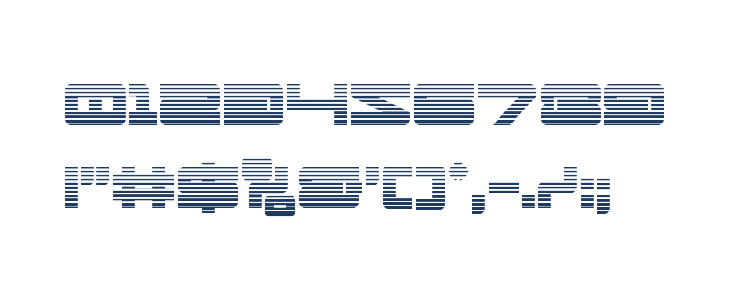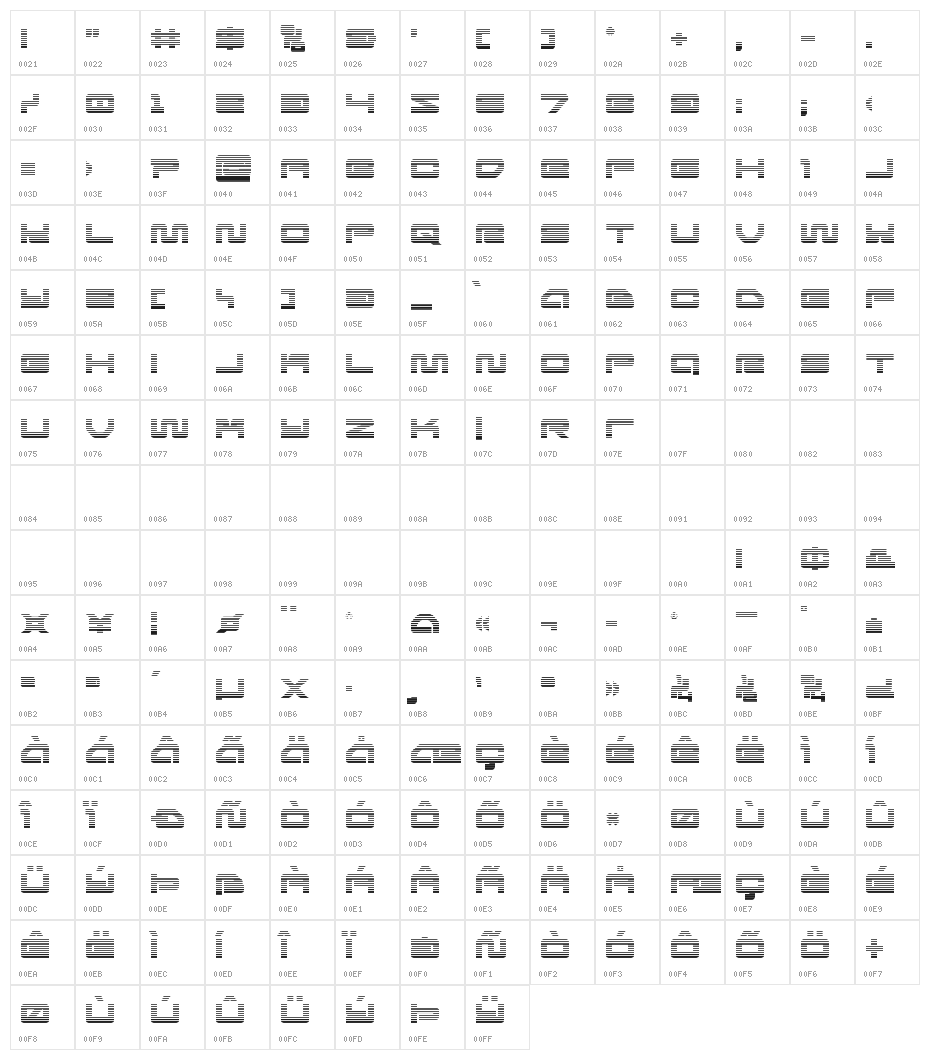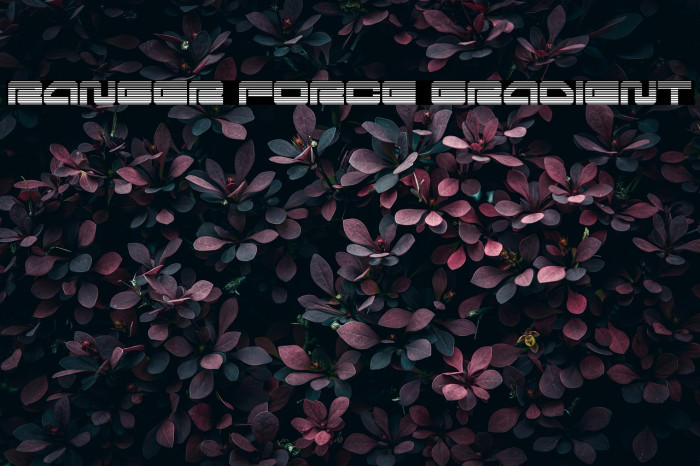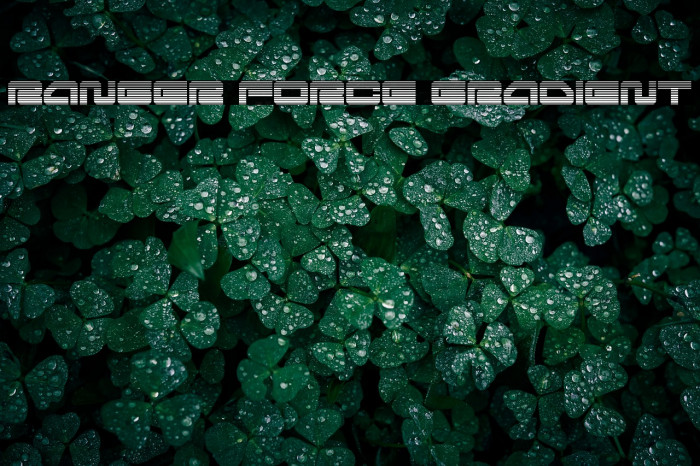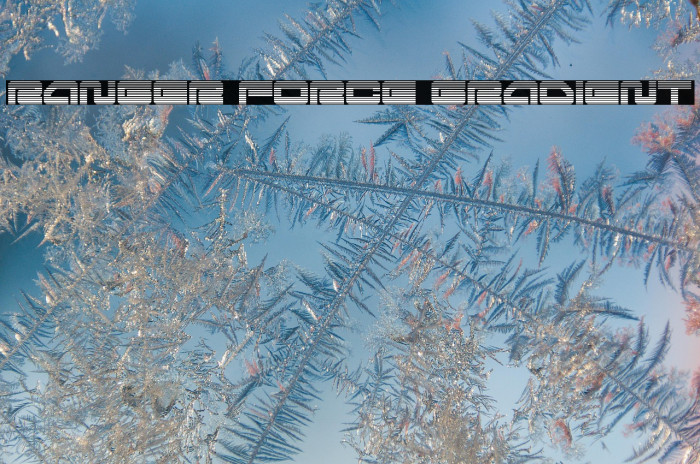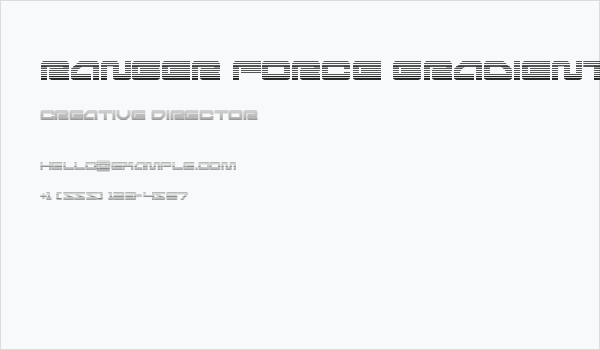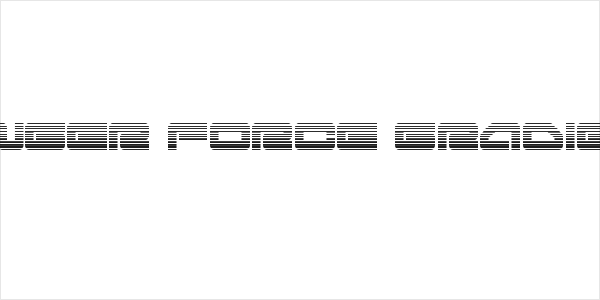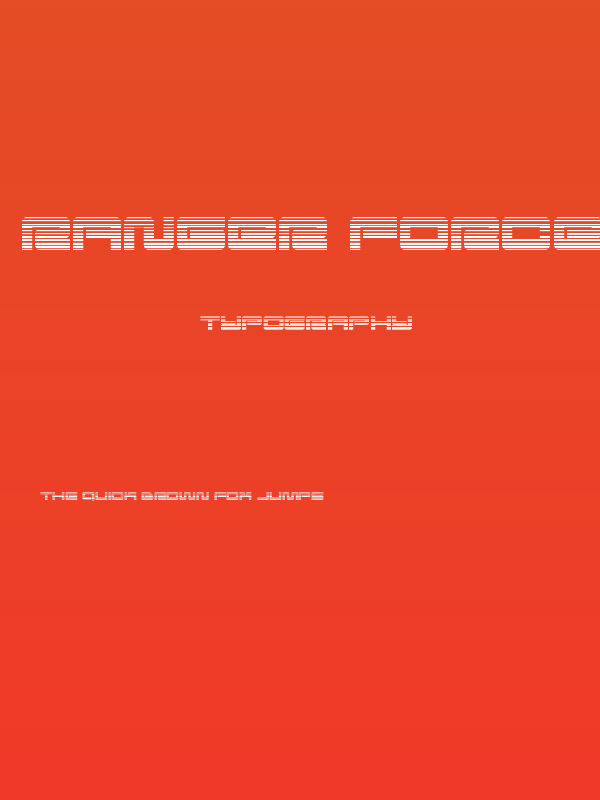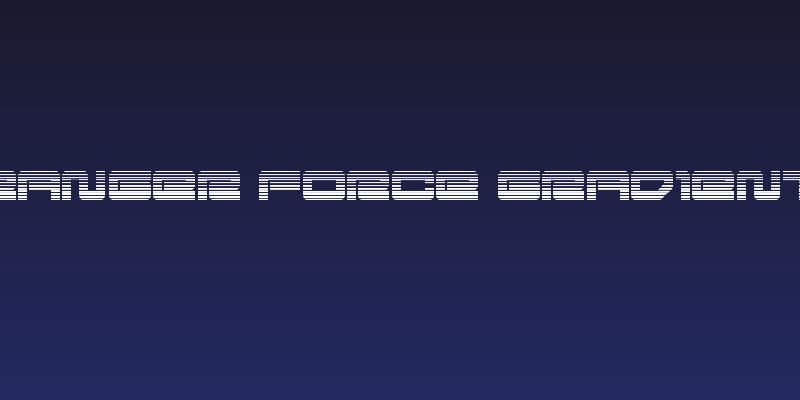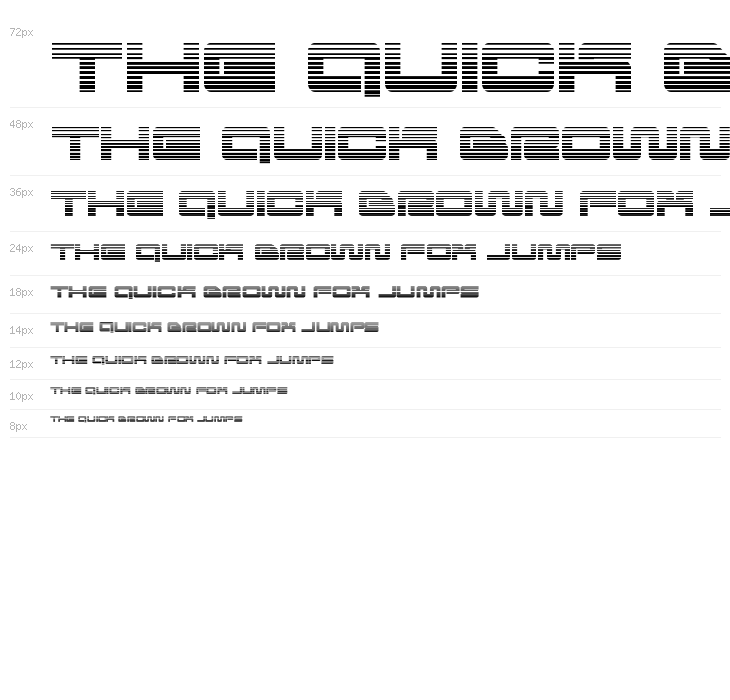
Ranger Force Gradient Font
Ranger Force Gradient Description
This font features a futuristic and dynamic design characterized by its horizontal line gradients that create a sense of movement and depth. Each character is constructed with a series of parallel lines, giving it a unique and modern appearance. The uppercase and lowercase letters maintain a consistent style, with the lines varying in thickness to form the shapes of the letters. The numerals and special characters follow the same design principles, ensuring uniformity across the font. This font's distinct style makes it suitable for projects that require a bold and innovative look.
| Proposed Projects | Ideal for sci-fi themed designs, technology branding, video game titles, and futuristic posters. |